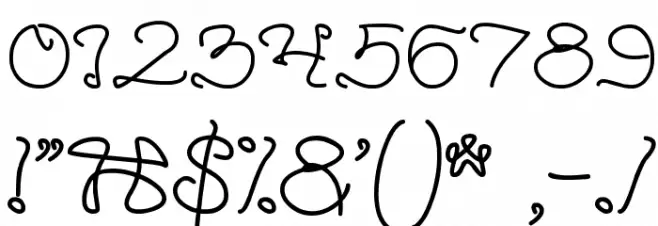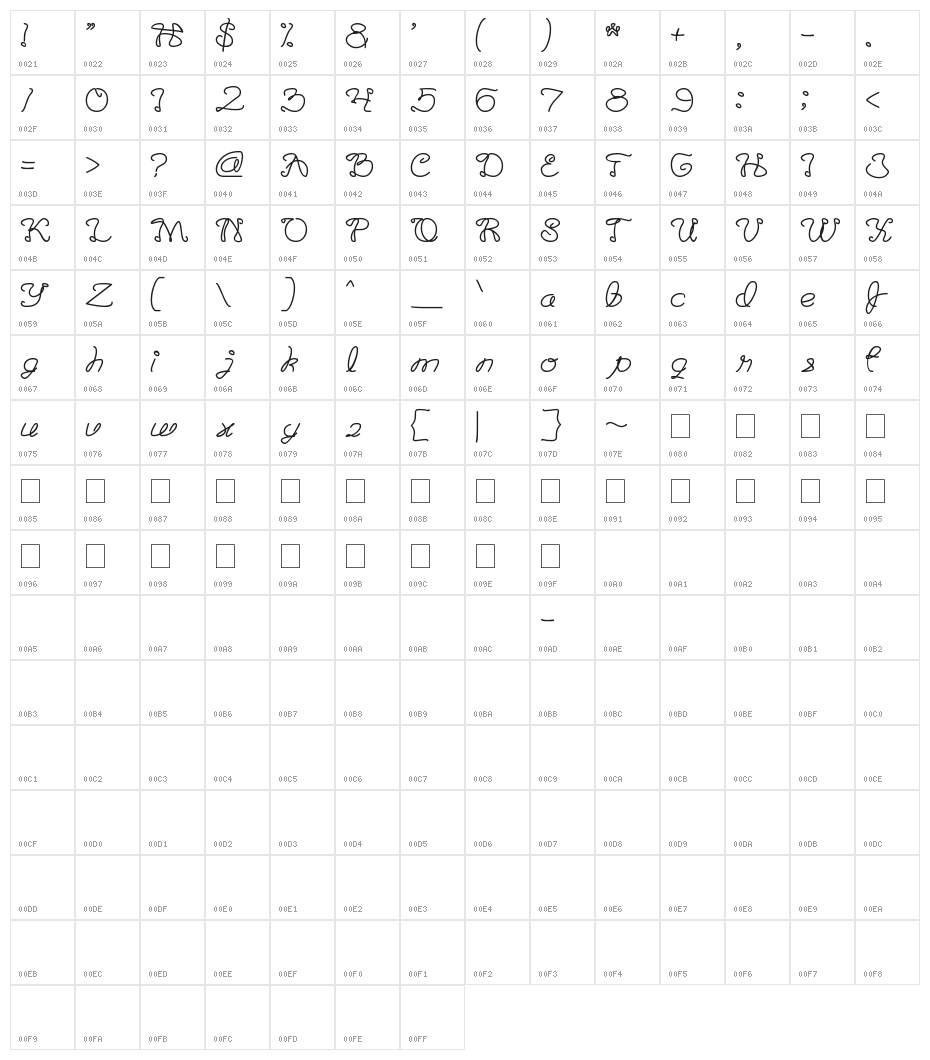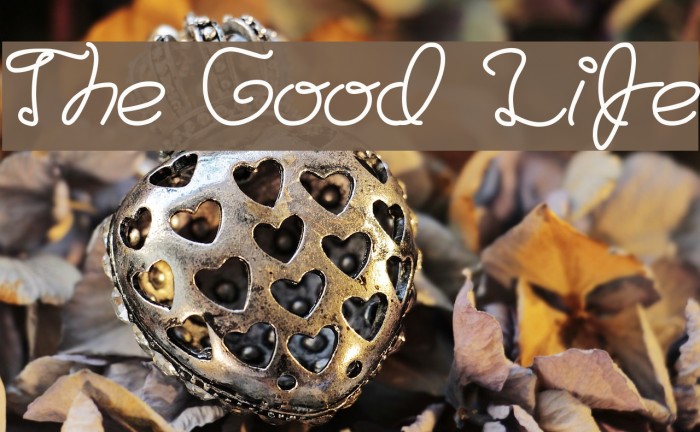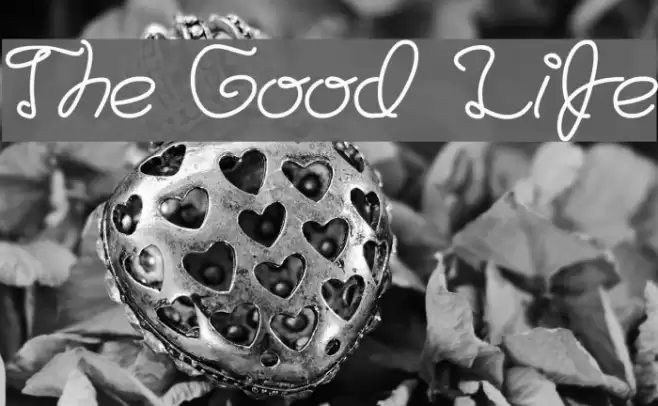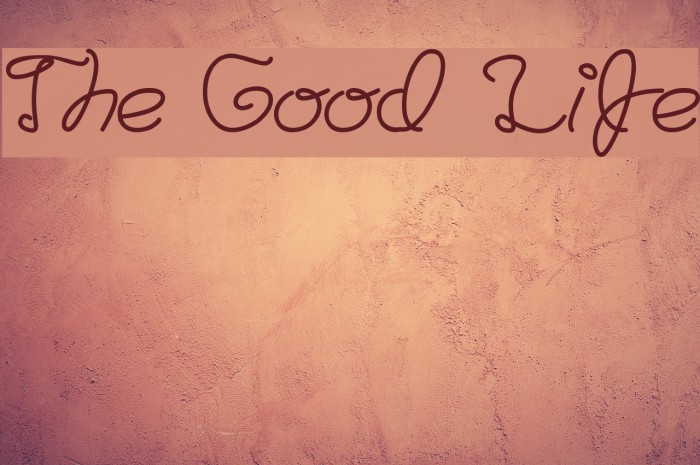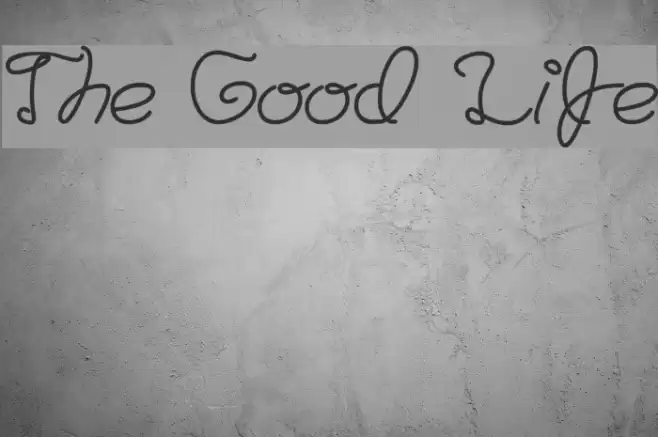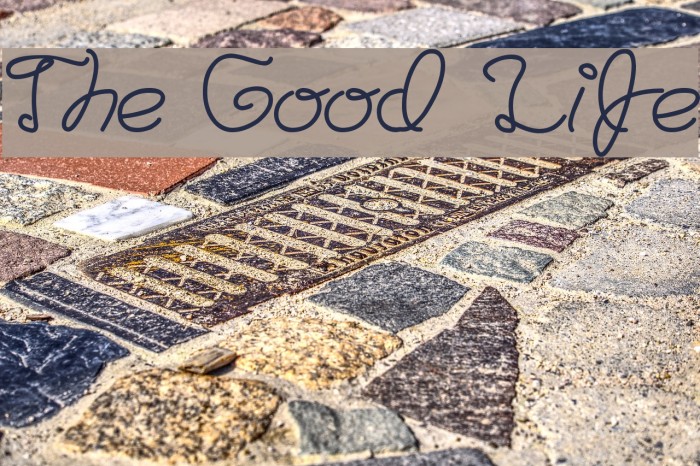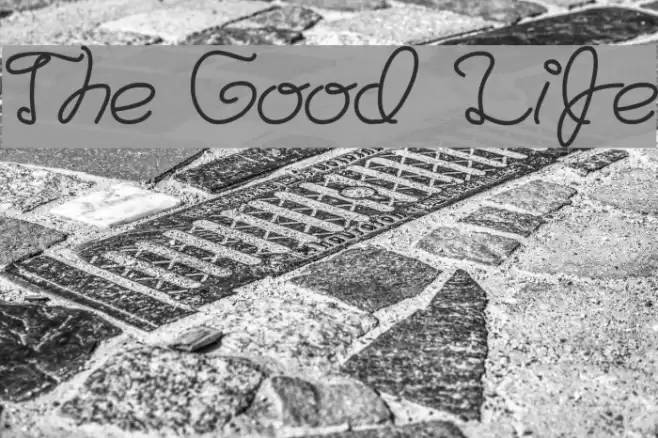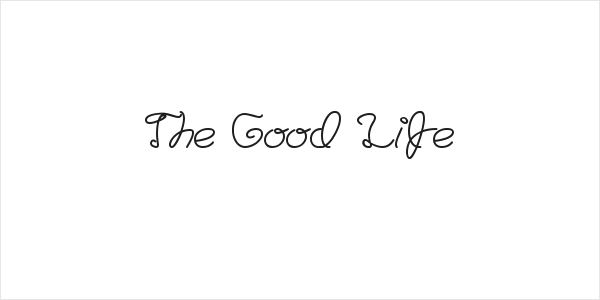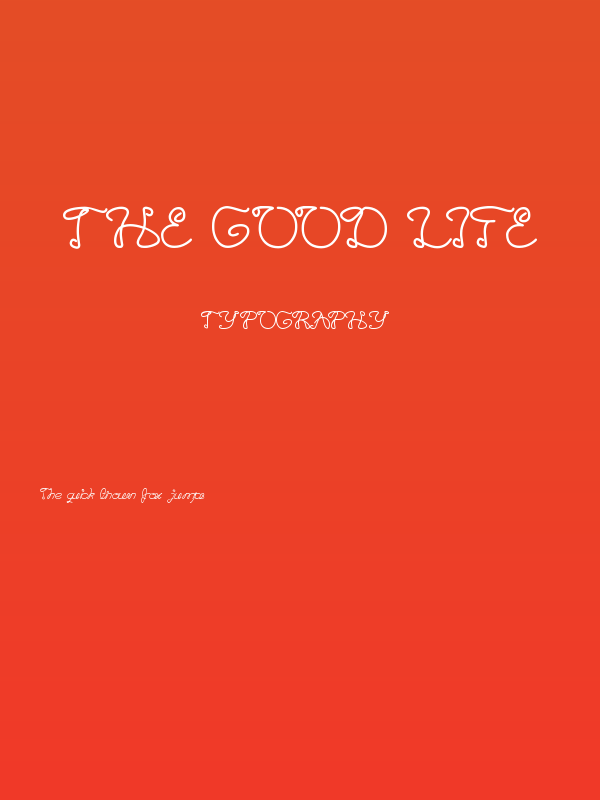
The Good Life Font
The Good Life Description
This font features a whimsical and playful design, characterized by its flowing, interconnected strokes that create a sense of movement and fluidity. The letters are crafted with a unique looping style, giving it a hand-drawn, artistic feel. The uppercase and lowercase letters maintain a consistent style, with the lowercase letters exhibiting slightly more exaggerated loops and curves. Numbers and special characters are designed to match the overall aesthetic, ensuring a cohesive look. The font's distinctive style makes it stand out, perfect for projects that require a touch of creativity and personality.
A whimsical, hand-drawn font with flowing, interconnected strokes and a playful aesthetic from Uncategorized fonts.